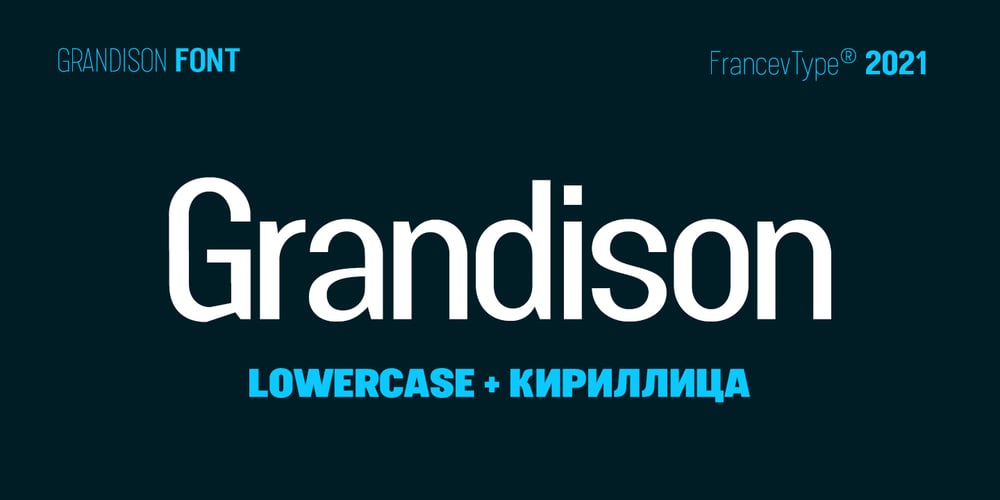
Grandison Font Family was designed by Francev Dmitriy and published by Francev. Grandison contains 9 styles and family package options. The Grandison Family is a geometric sans-serif grotesque. Originally conceived as a font for logos. It has 9 weight ranges from Light to Black. It is ideal for advertising and packaging, editorial and publishing, logos, branding and creative industries, posters and billboards, small text, pathfinding and signage, and web and screen design.Grandison provides advanced typographic support with features such as case-sensitive forms, fractions, super-and subscript characters, and stylistic alternatives.